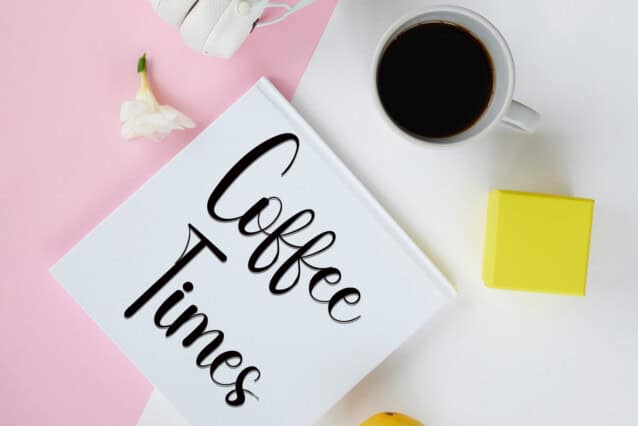
Simple Script Font
Simple Script Font is a lovely and timeless handwritten font. It is the best choice for creating eye catching logos, branding and quotes. Every letter has a unique and beautiful touch, which will make your design come alive!